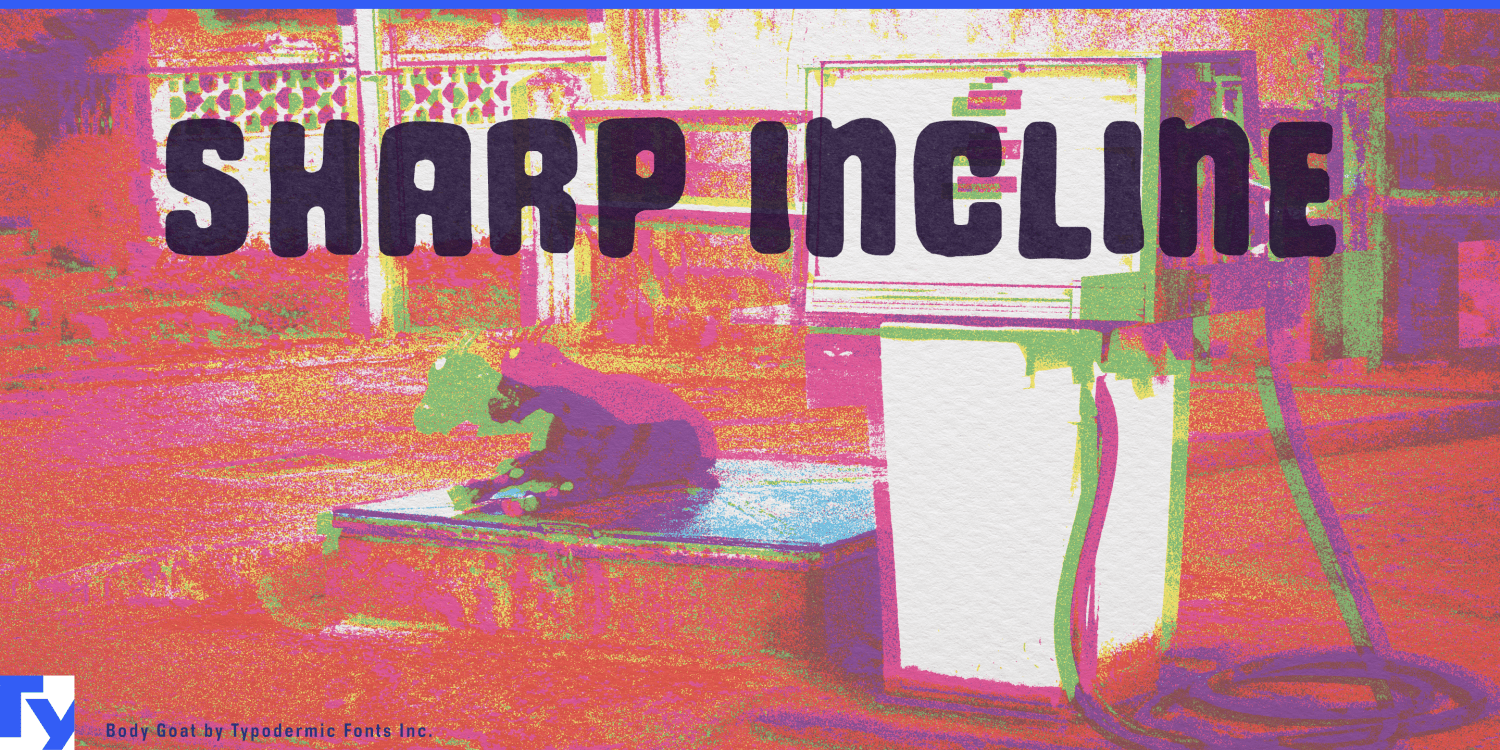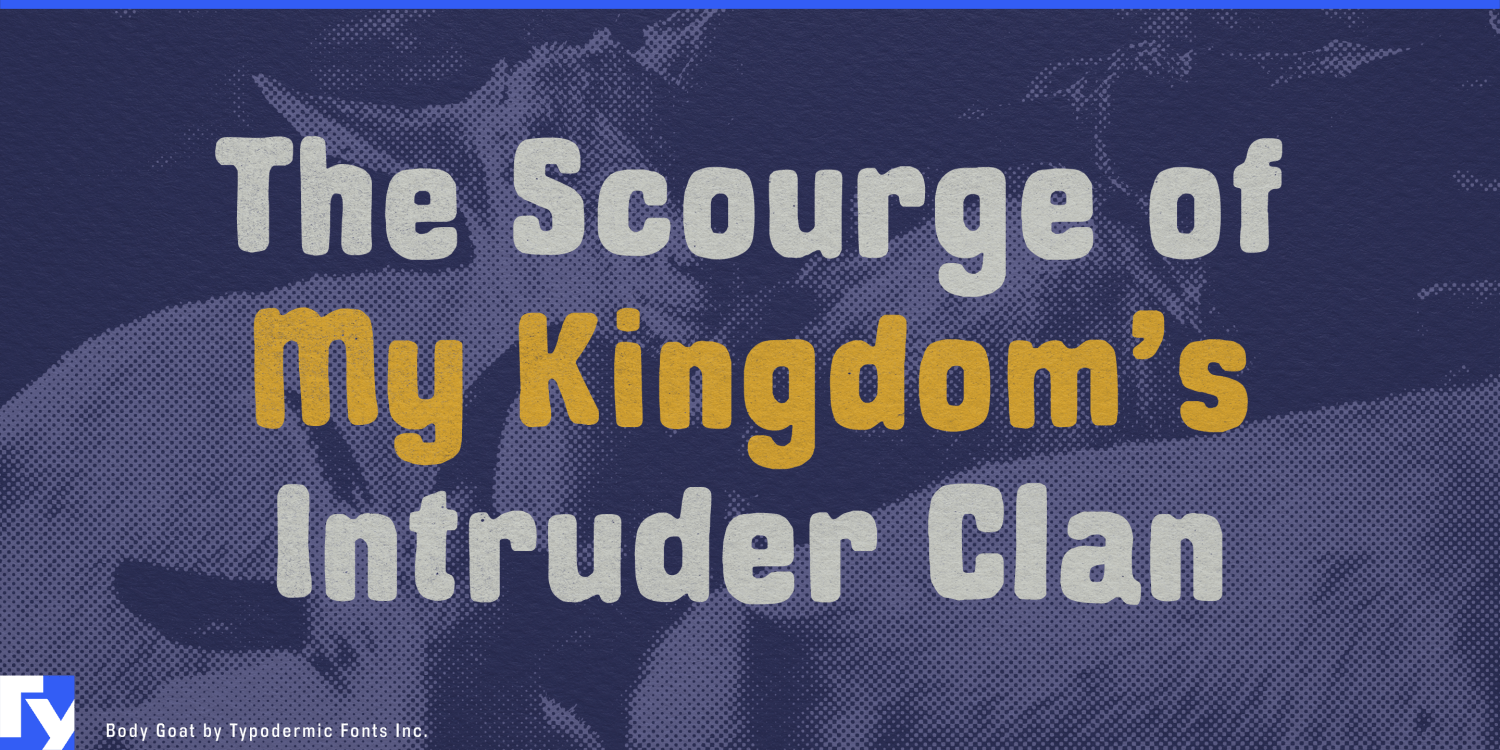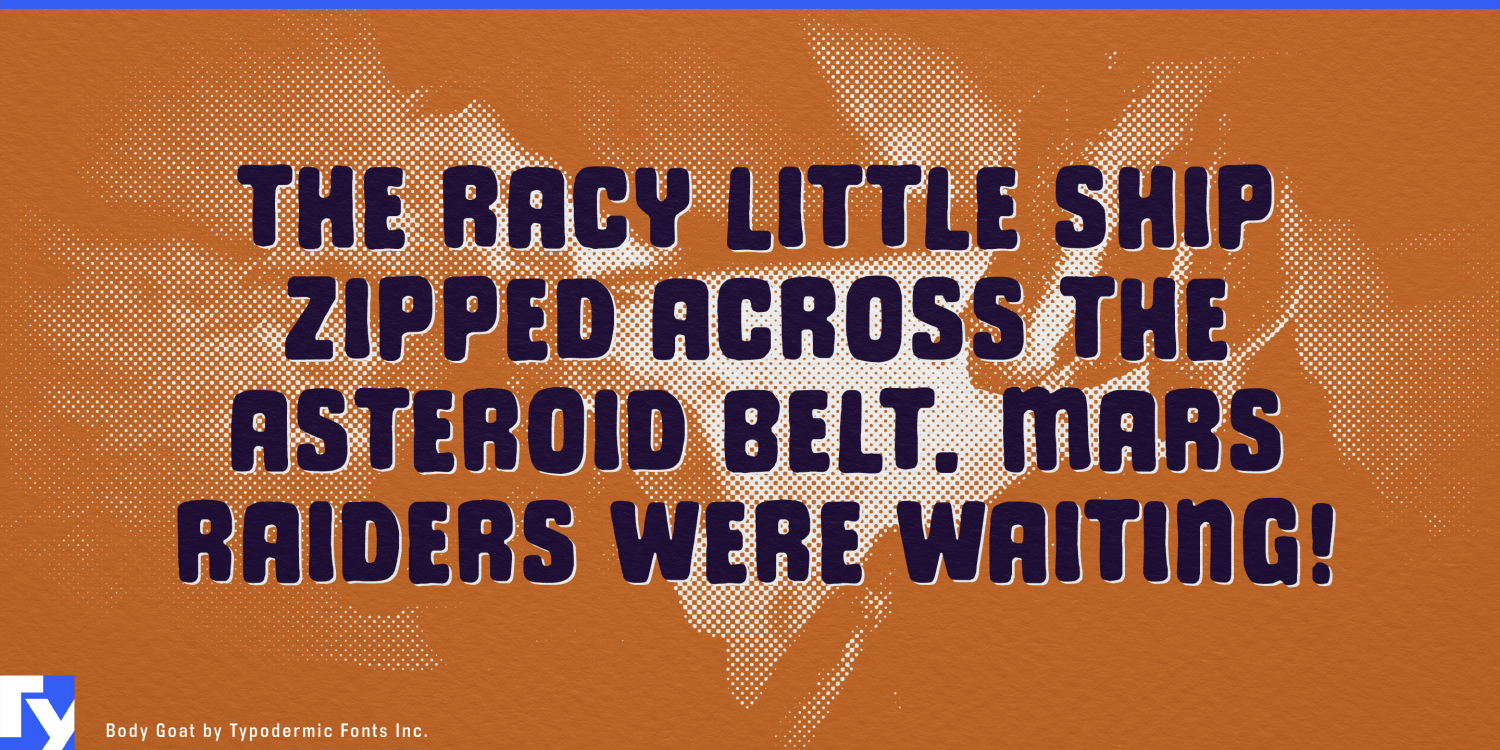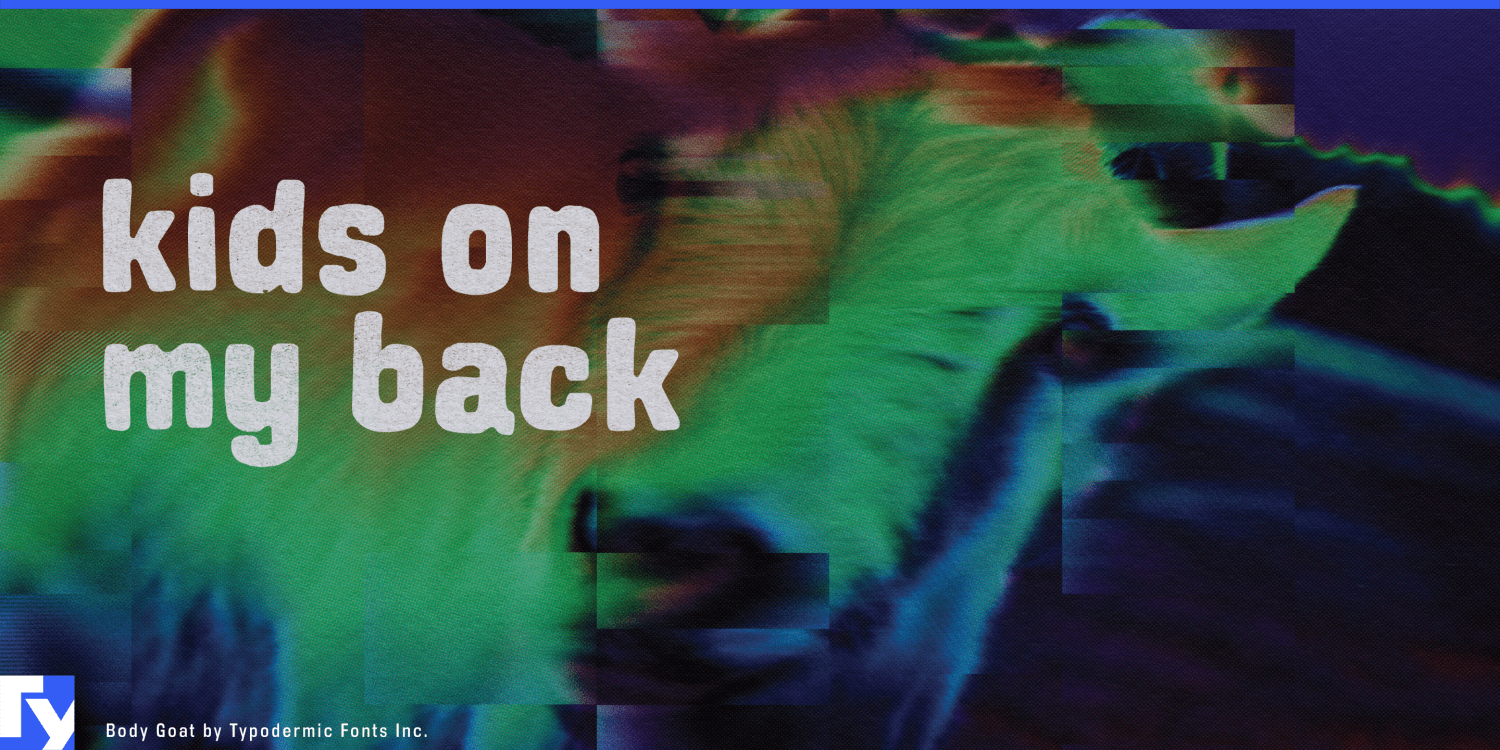
Step into the surreal realm of Body Goat—a hand-painted display typeface that defies convention and ignites the imagination. This compact marvel of letterform artistry invites you to explore the boundaries where typography meets the extraordinary.…